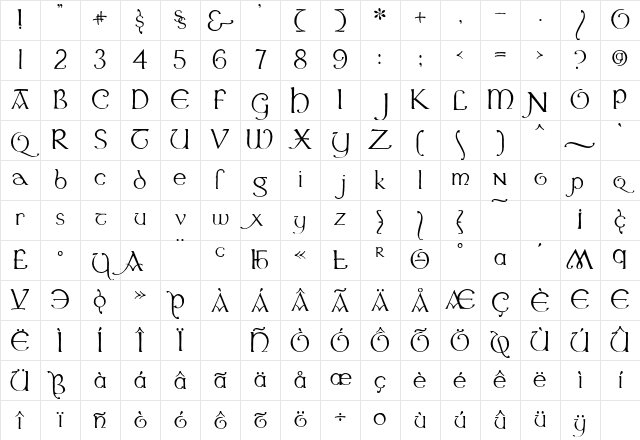
Dumaigne Regular Free Font
Dumaigne Regular
Design Context for Dumaigne
Dumaigne is a composed and adaptable typeface that performs quietly and consistently across a wide range of design contexts.